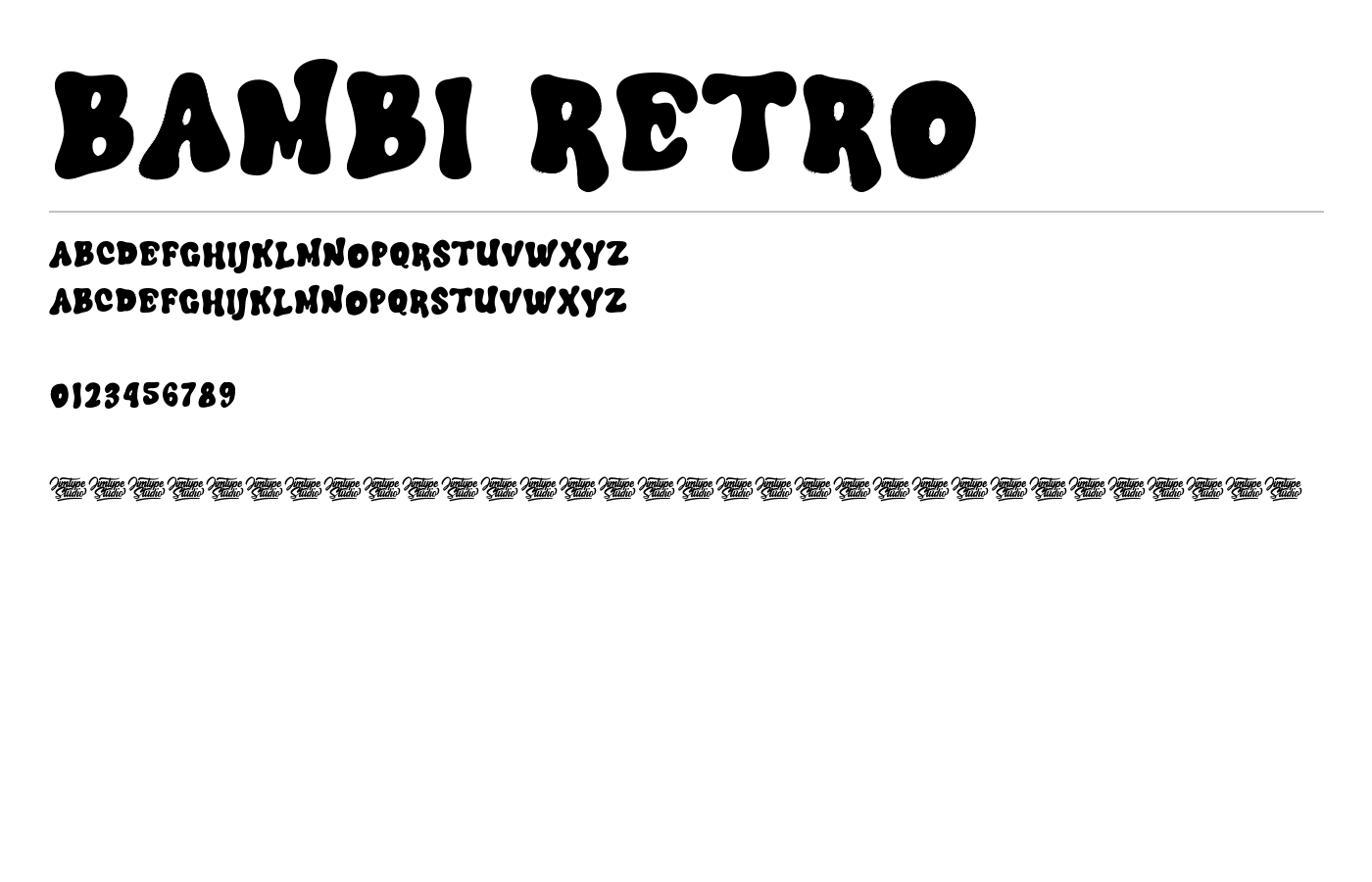
Bambi Retro is a playful and bold display font with a chunky, organic feel that brings a strong sense of vintage charm and 1970s psychedelic style. Its thick, rounded letterforms and tight spacing create a friendly, eye-catching look ideal for logos, posters, packaging, and other creative projects seeking a fun, nostalgic vibe. This font shines in large sizes, making it perfect for headlines and branding that want to stand out with personality and warmth.
Bambi Retro Font
About Bambi Retro Font
| Font family | Bambi Retro Font |
| Designer | Jimtype Studio |